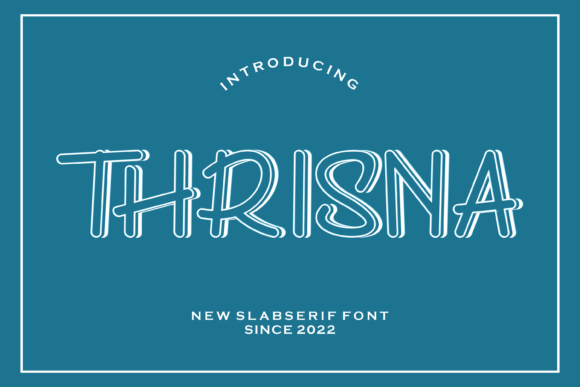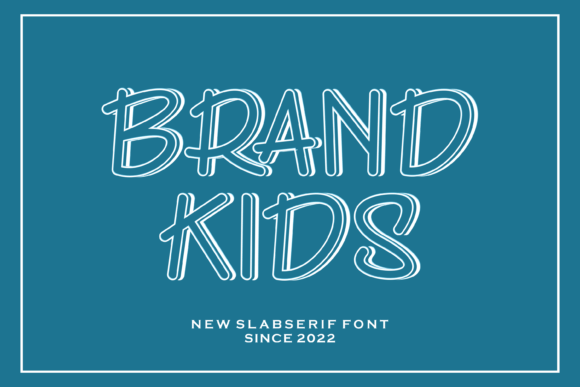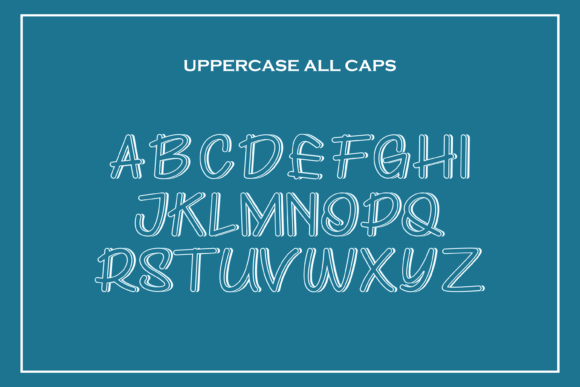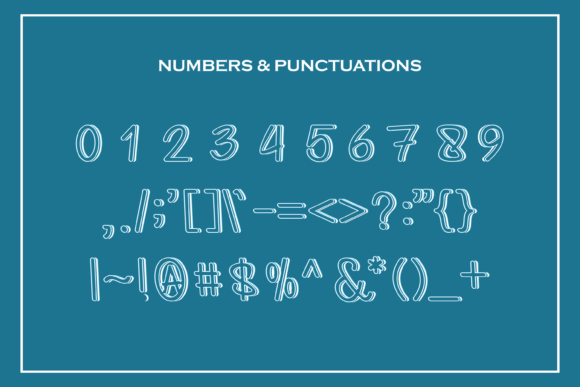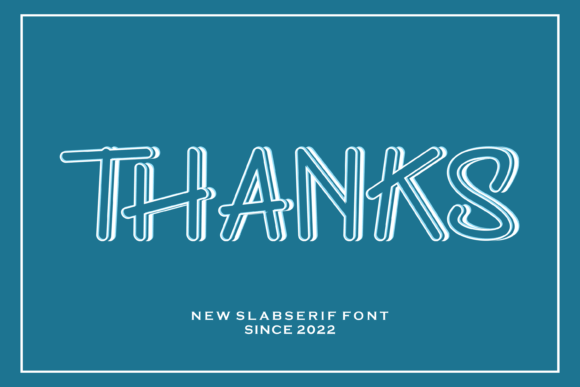
Thrisna: A Cool and Modern Slab Serif Font
Thrisna is a cool and modern slab serif font that brings versatility to various design applications. This adaptable typeface works well across a wide range of creative ideas.
Key Features of Thrisna
- Cool Design: Offers a fresh and appealing look.
- Modern Style: Features contemporary design elements.
- Versatile Use: Adapts well to many creative applications.
- Bold Character: Brings distinctive personality to designs[2].
Best Uses for Thrisna
Thanks to its versatile characteristics, Thrisna works especially well for:
- Display typography
- Headlines and titles
- Modern branding
- Digital interfaces
- Creative advertising
- Contemporary design
- Impactful logos
When using Thrisna in your designs, keep these tips in mind:
- Try it for headlines or display text to showcase its cool style[3].
- Use different sizes to highlight its modern features.
- Pair with simpler fonts for body text to create balance[5].
- Let its versatility inspire creative applications.
To sum up, Thrisna is an excellent choice for designers seeking a cool and modern slab serif font. Its versatility makes it perfect for various creative projects. Whether you’re creating contemporary branding, designing digital interfaces, or developing advertising materials, Thrisna offers the perfect blend of fresh style and adaptability.
Furthermore, Thrisna’s distinctive design allows it to shine in contexts where both modernity and impact are key. For instance, from headlines to logos, this font can elevate your projects with its cool style. Also, its modern yet readable appearance works particularly well in designs that aim to make a contemporary impact.
In conclusion, Thrisna truly captures the essence of modern design in slab serif typography. Its versatility across different applications shows how well it can serve various creative needs. Therefore, for those wanting to add a touch of cool sophistication to their work, Thrisna can enhance any design with its unique style. Ultimately, it’s perfect for designers aiming to make a modern, fresh impact across a wide range of creative projects.